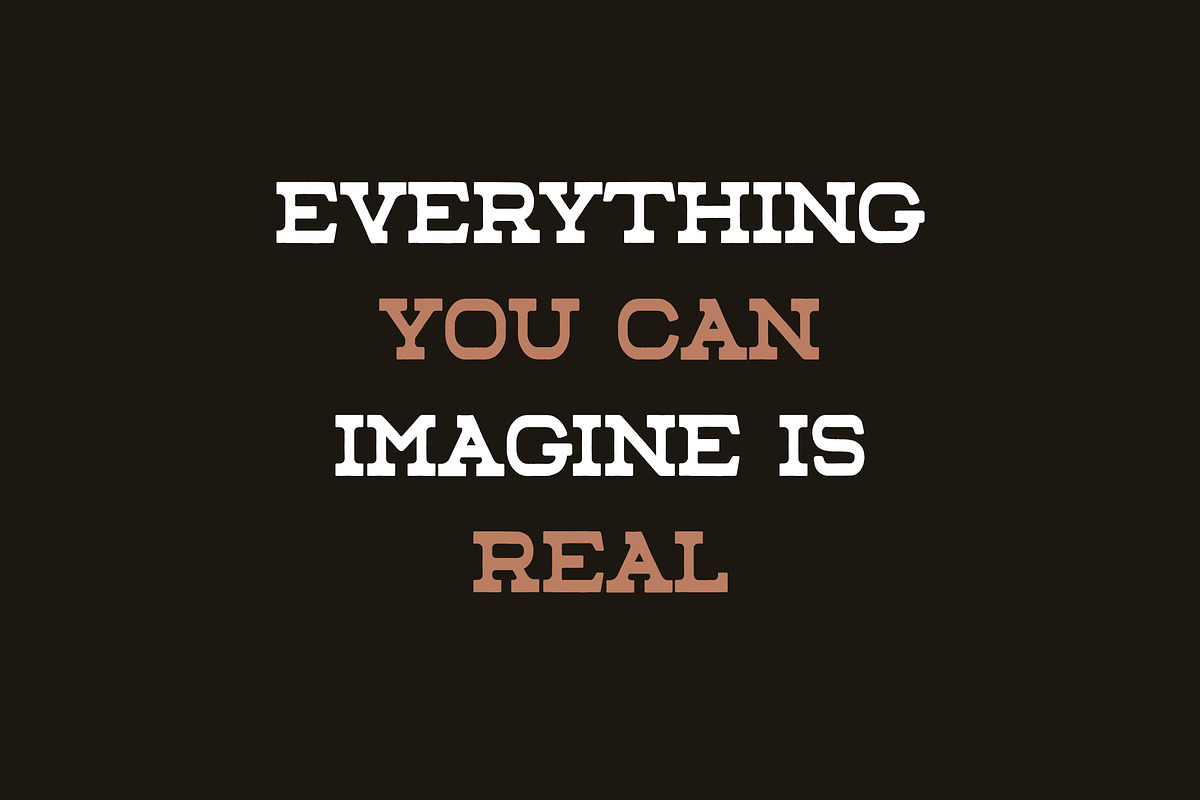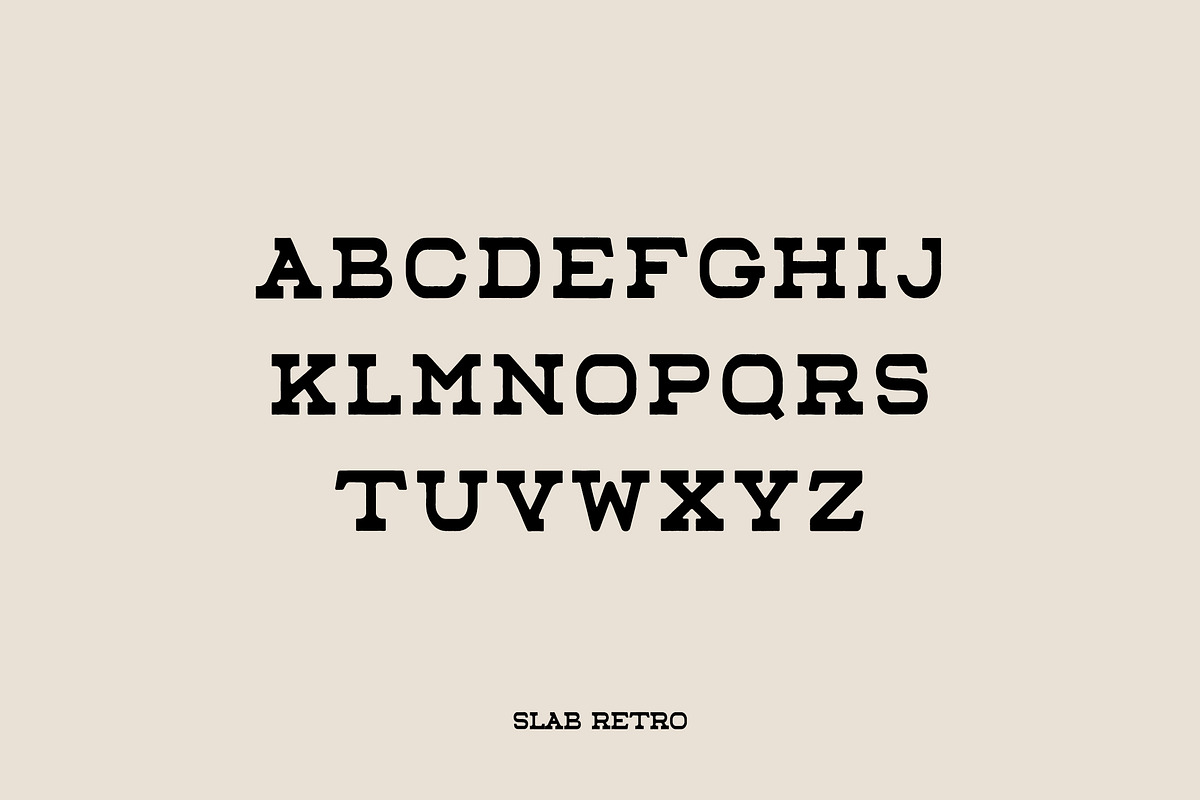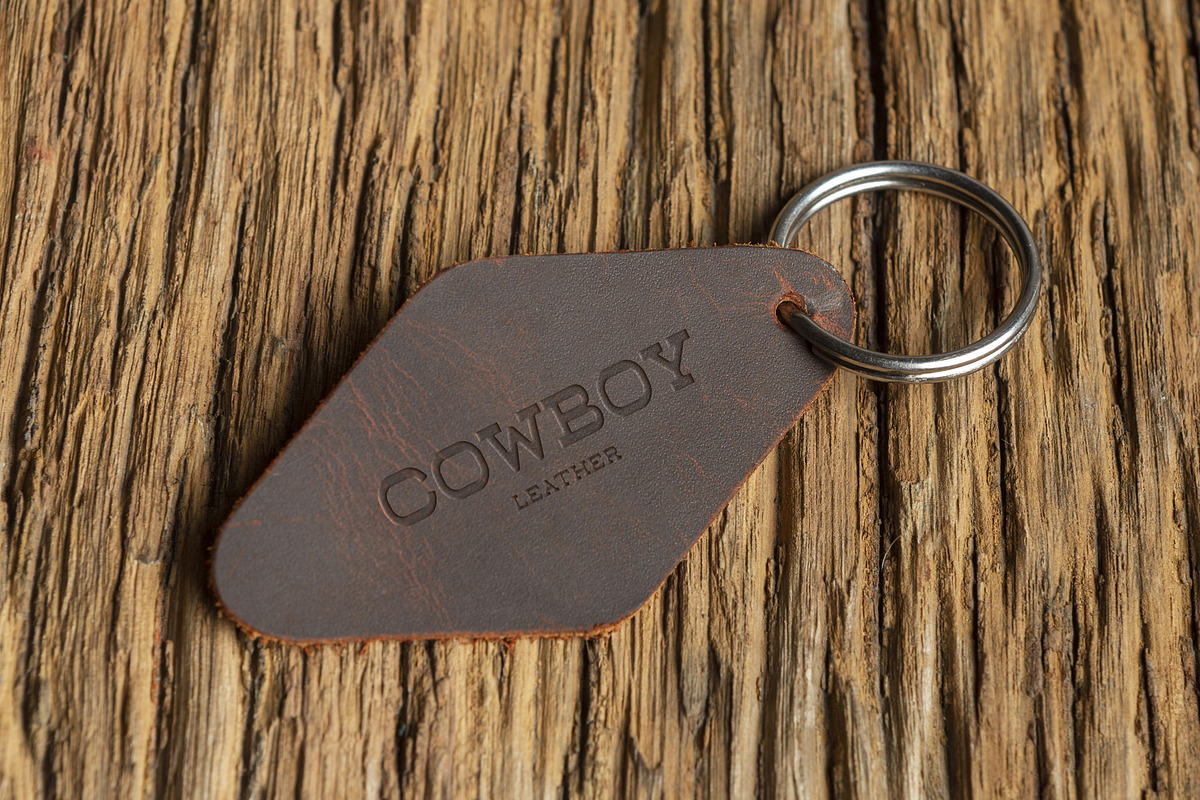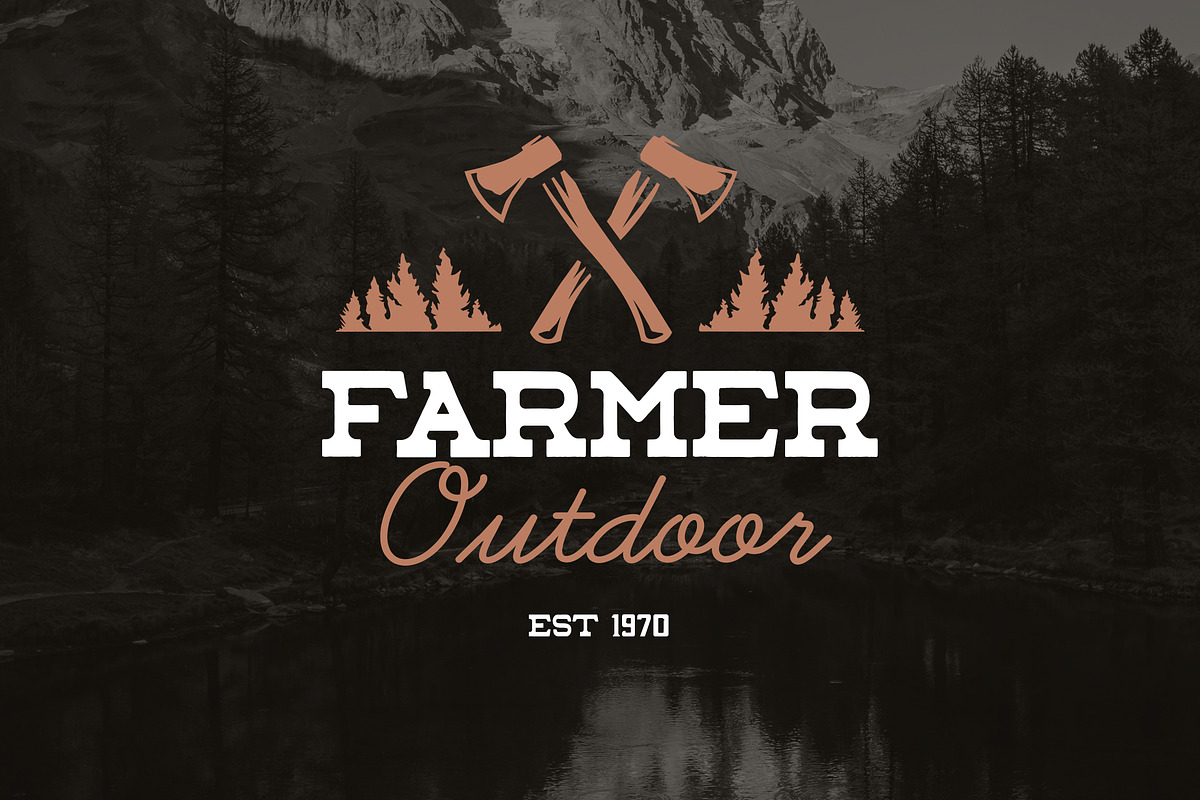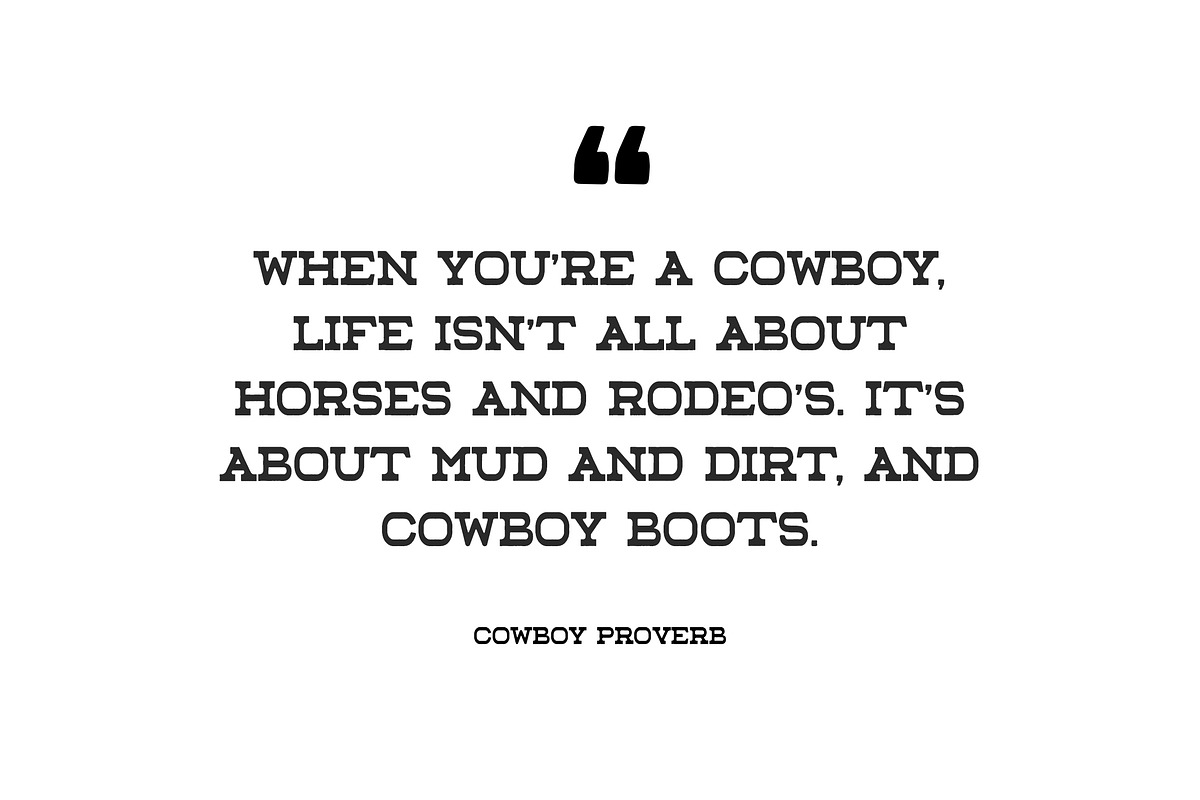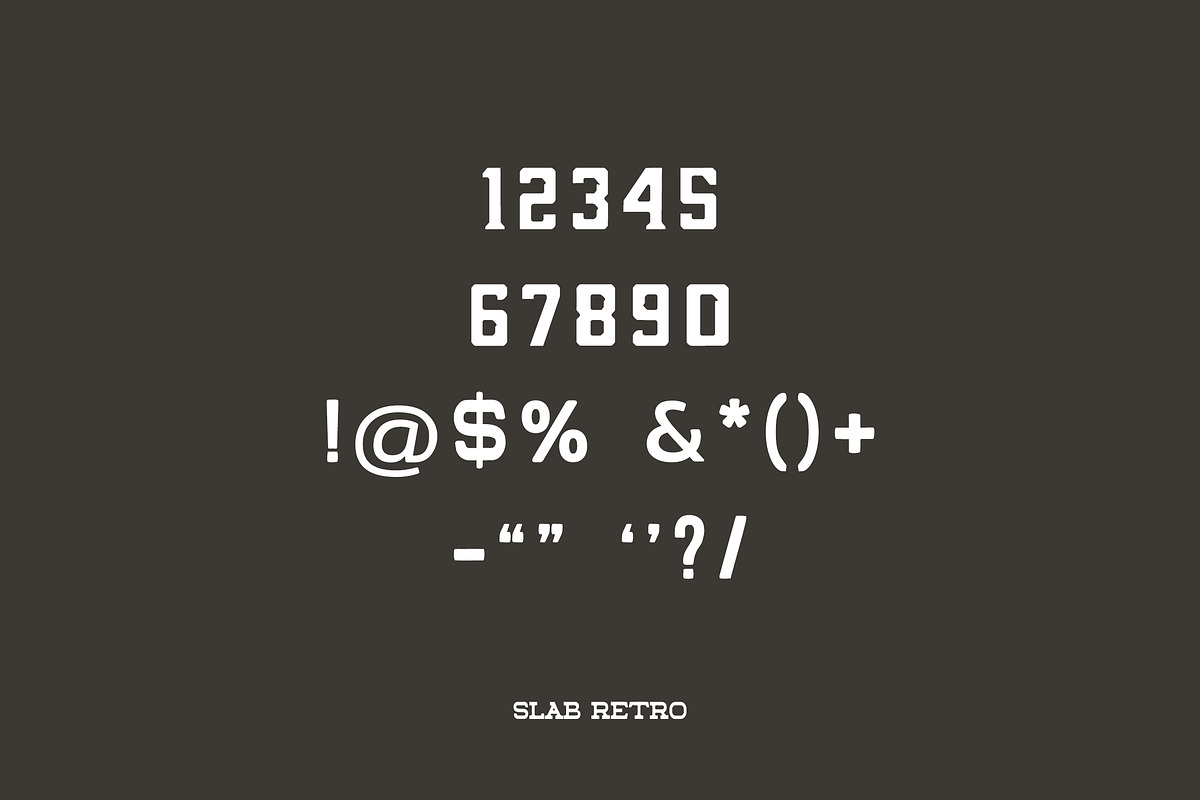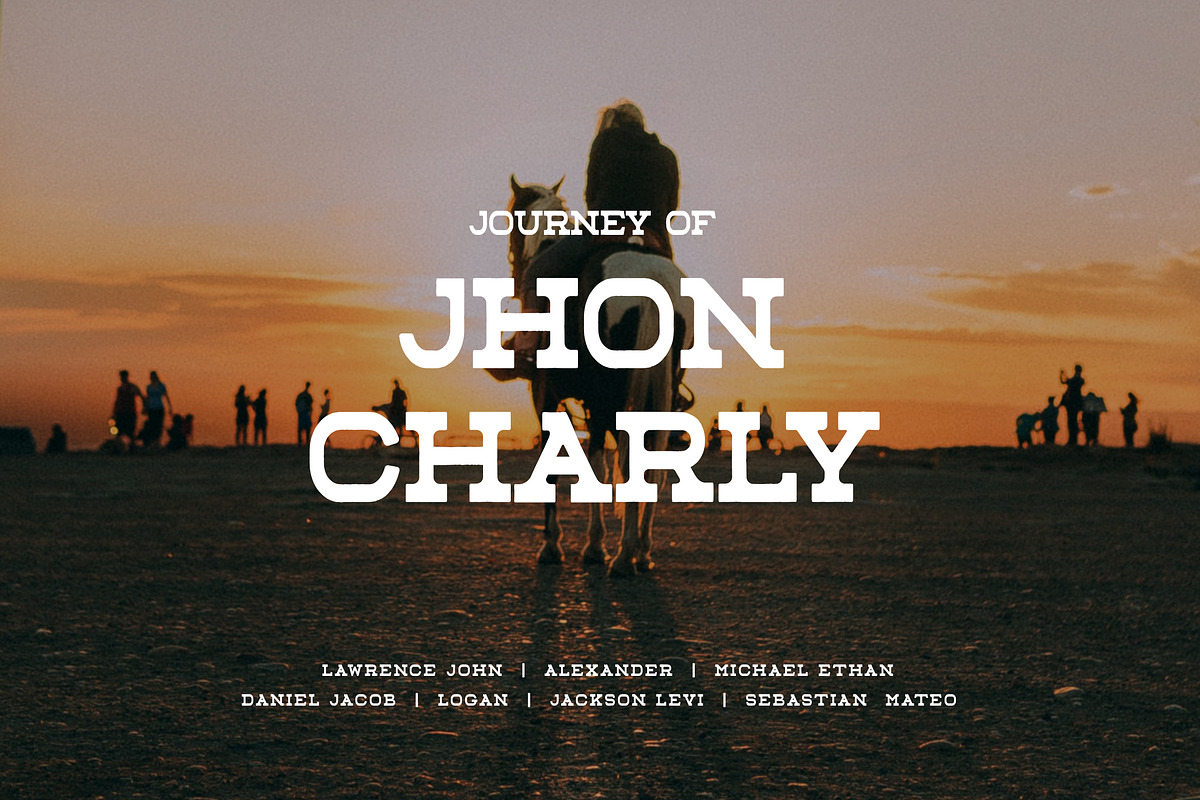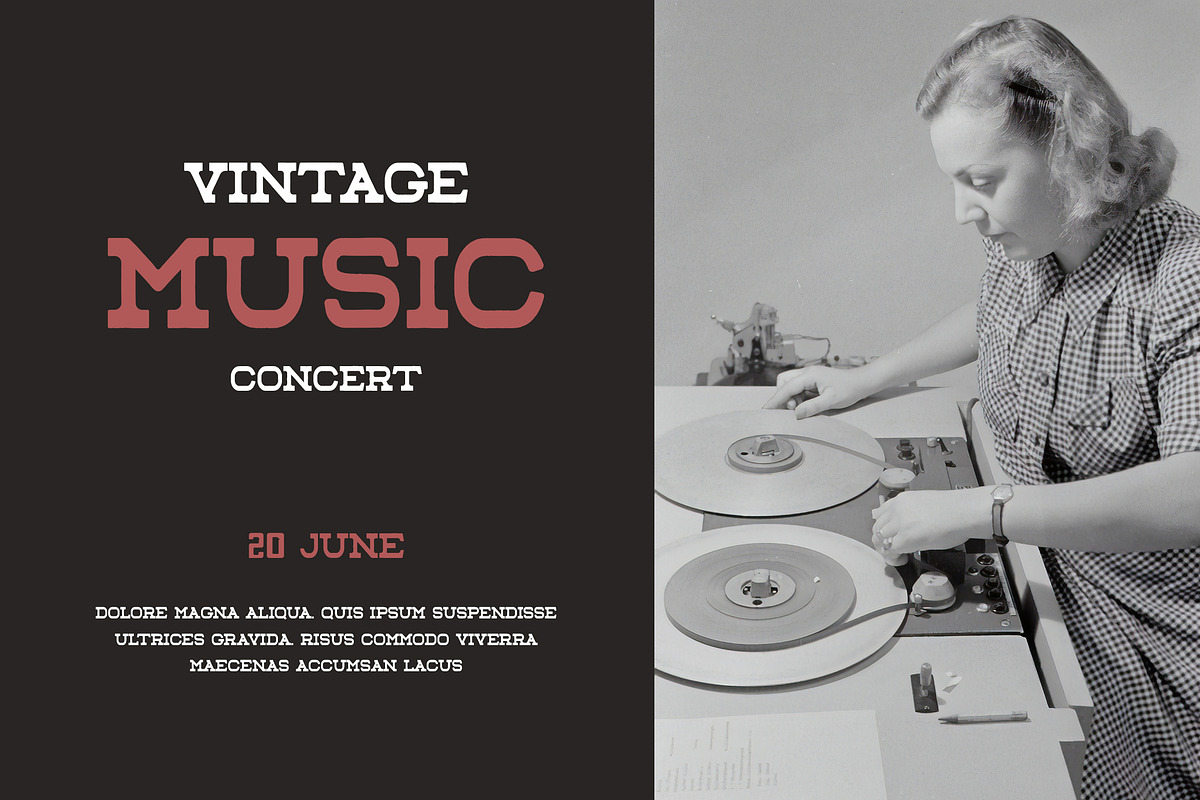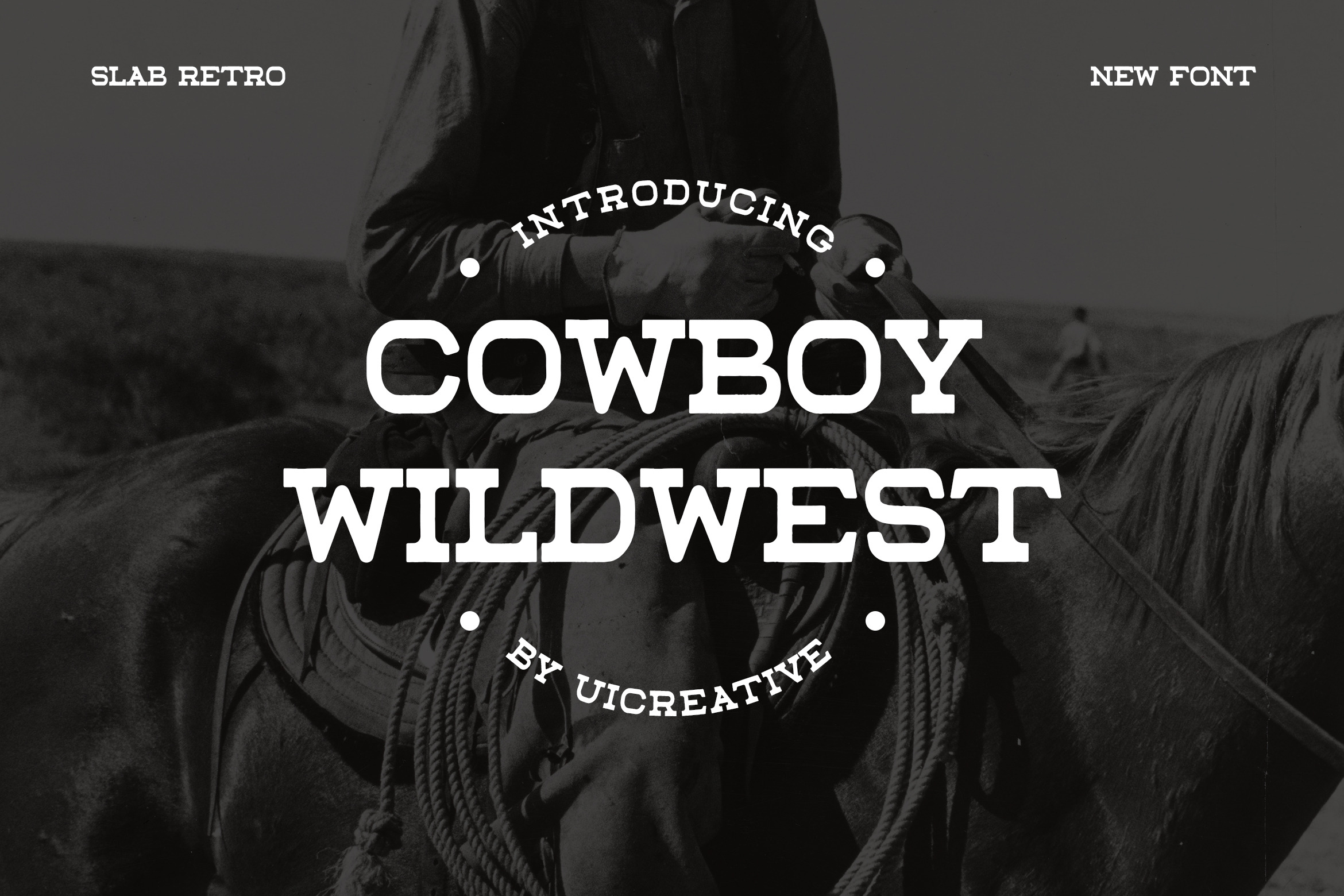
Cowboy Wildwest Slab Serif Font
Introducing our new product the name is Cowboy Wildwest Slab Serif Font. Modern Serif font that feels beautiful classy, elegant, and modern. This font is ideally suited for a wide variety of projects, such as signature, stationery, logo, wedding, typography quotes, magazine or book covers, website headers, clothing, branding, packaging design, and more. Also, fashion-related branding or editorial design displays both masculine and feminine qualities.